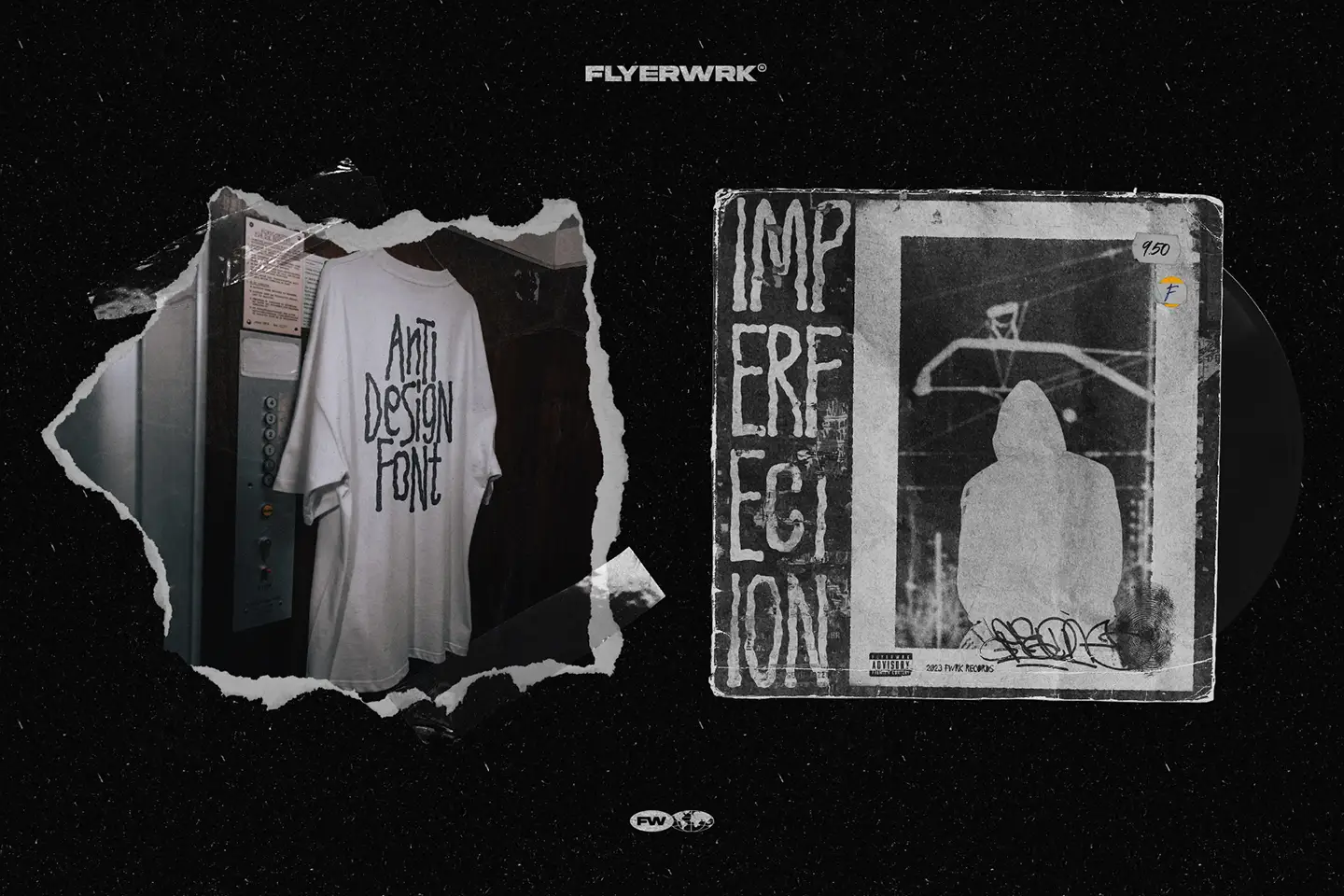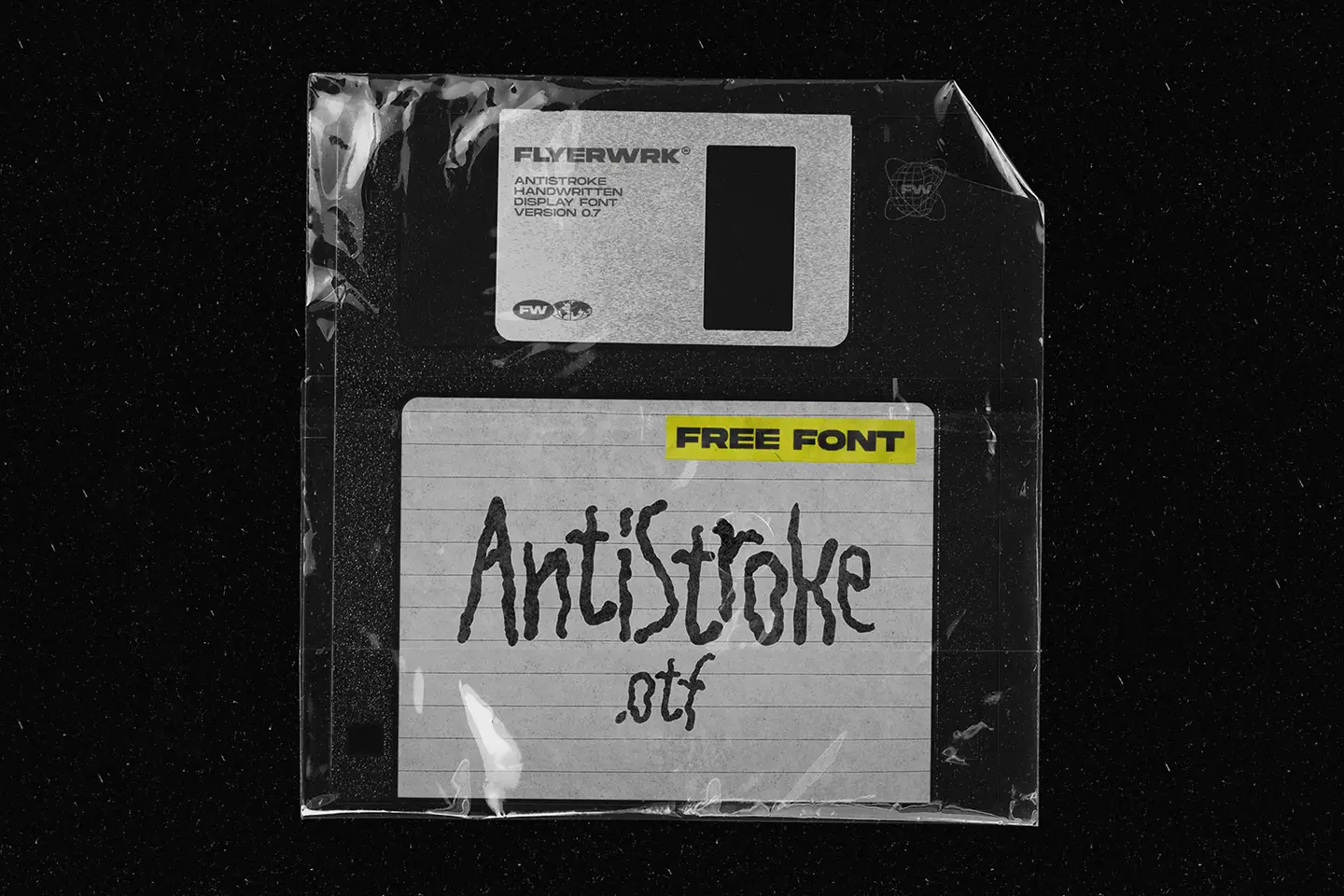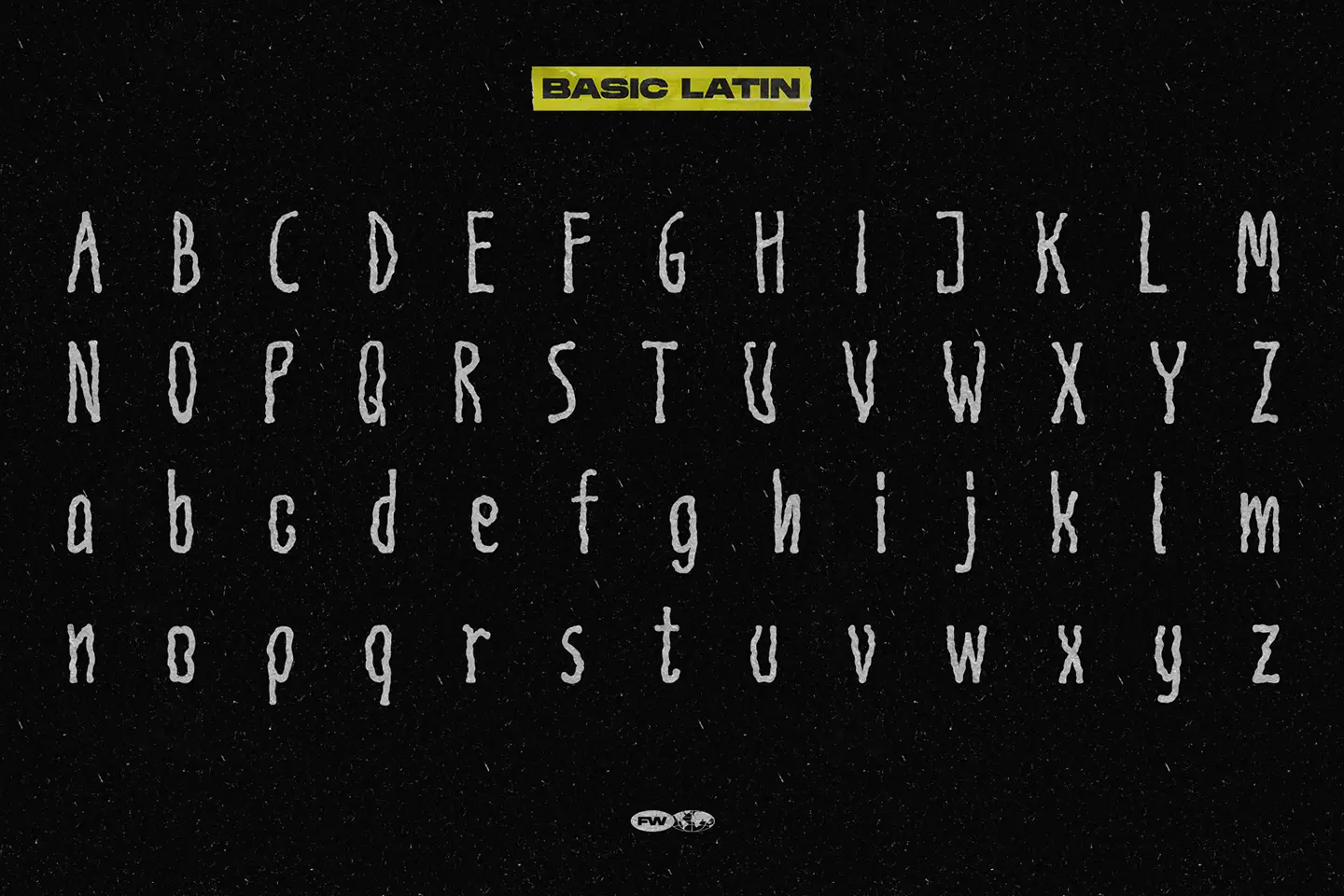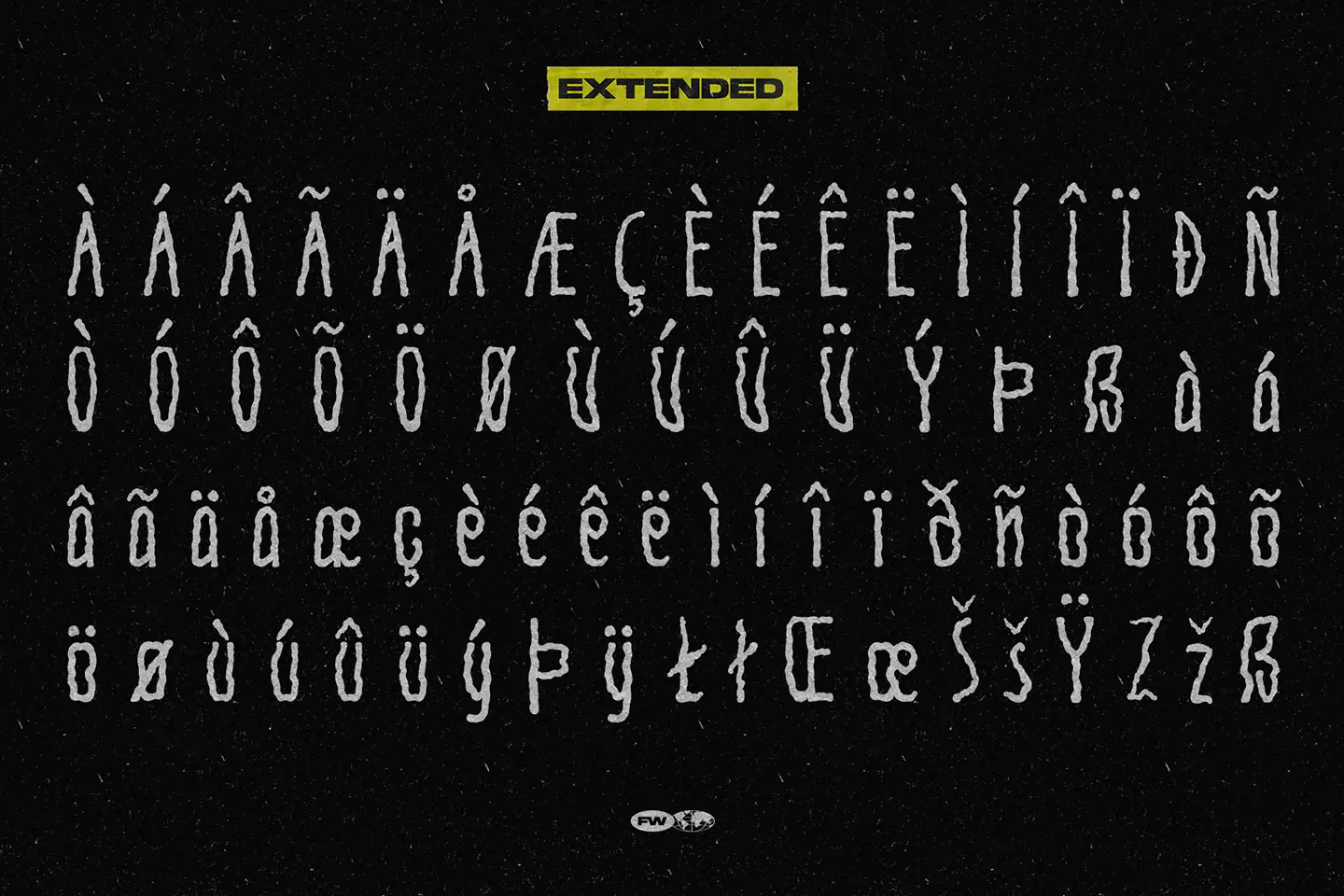
AntiStroke Font
Meet AntiStroke: The Font with Grit and Wit. Ever seen a font that doesn't just sit there but dances off the page? That's AntiStroke. Crafted on Fontself app with a dash of rebellion, this font is your go-to for when 'ordinary' just won't do. What's the Deal with AntiStroke? Handmade Havoc: Rough, random, and delightfully imperfect.
Inspired by Rebels
Born from the anti-design movement, it's the black sheep of the font family. Unapologetically Unique: Perfect for headlines that pop, quotes that sing, and designs that make you look twice.
Full basic Latin alphabet display of the AntiStroke handwritten font featuring uppercase and lowercase characters
Current and Evolving:
Rocking version 0.7 with kerning, ligatures, and alternates on the horizon. Why AntiStroke? Because why fit in when you were born to stand out? Use AntiStroke. Be unforgettable.
Showcase of extended Latin characters and accents included in the AntiStroke handwritten font character set